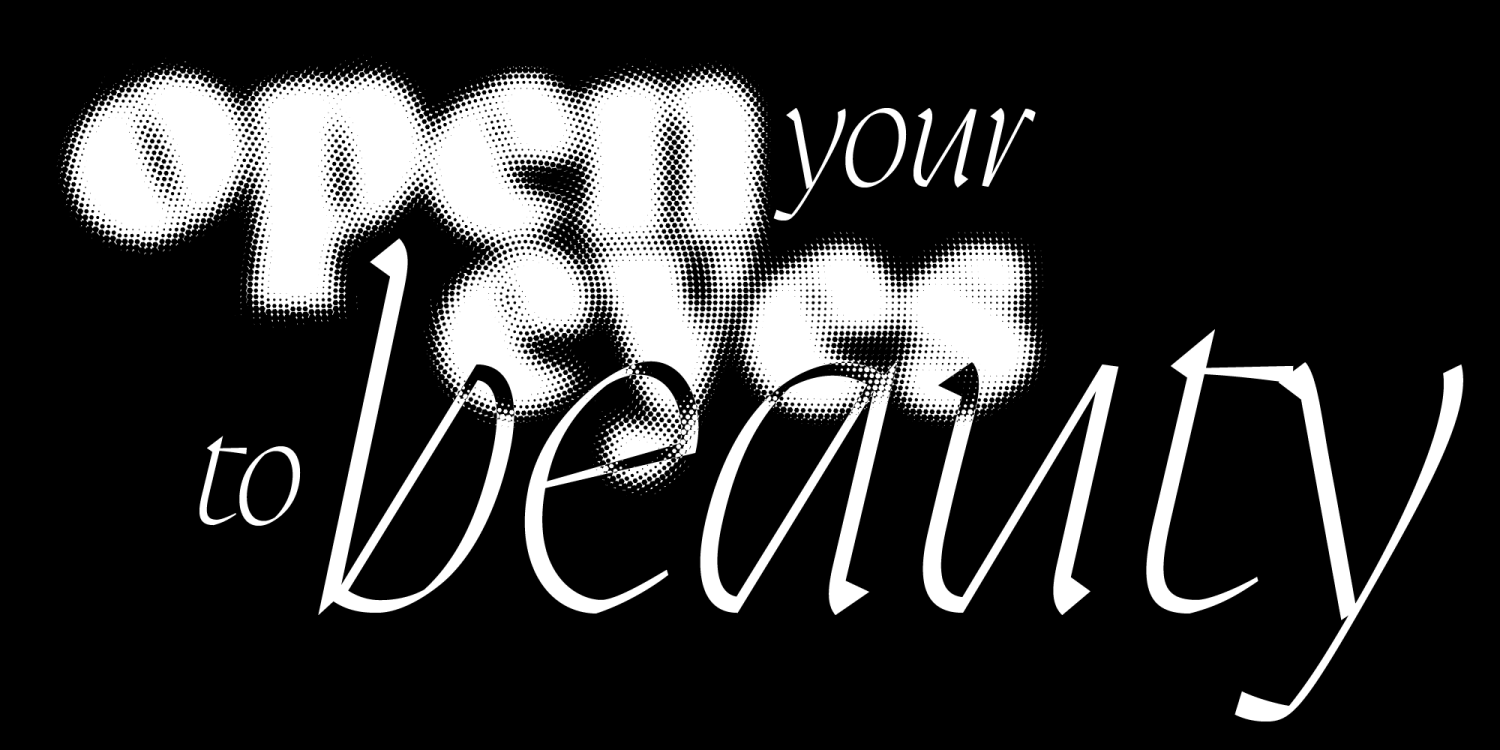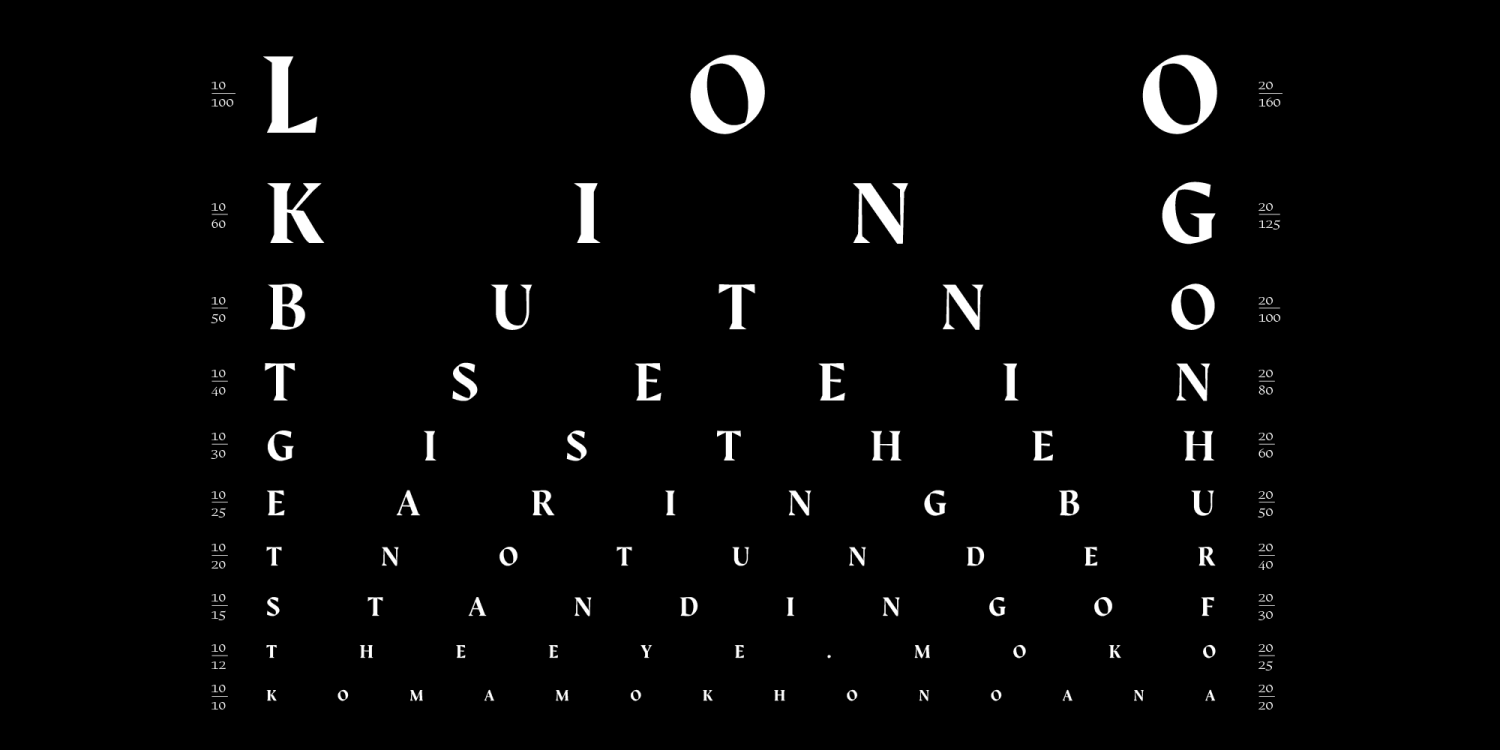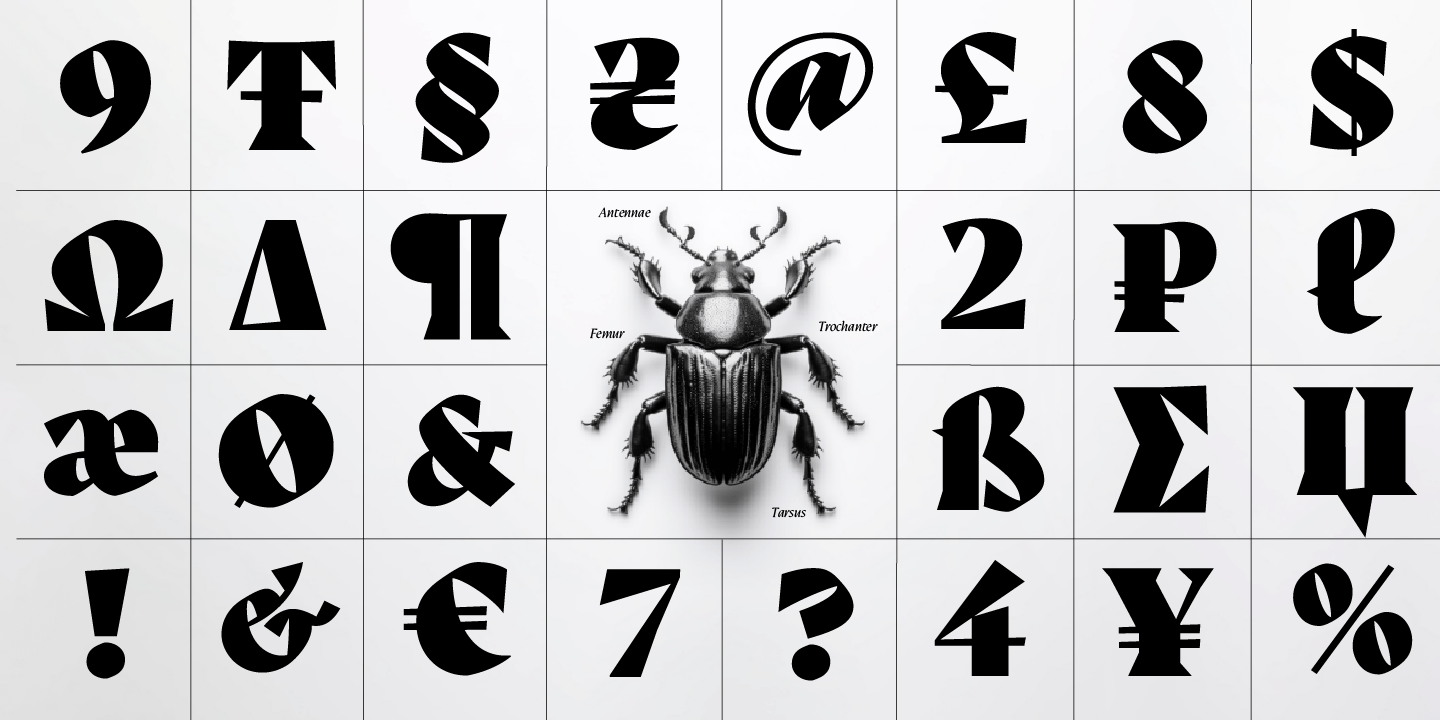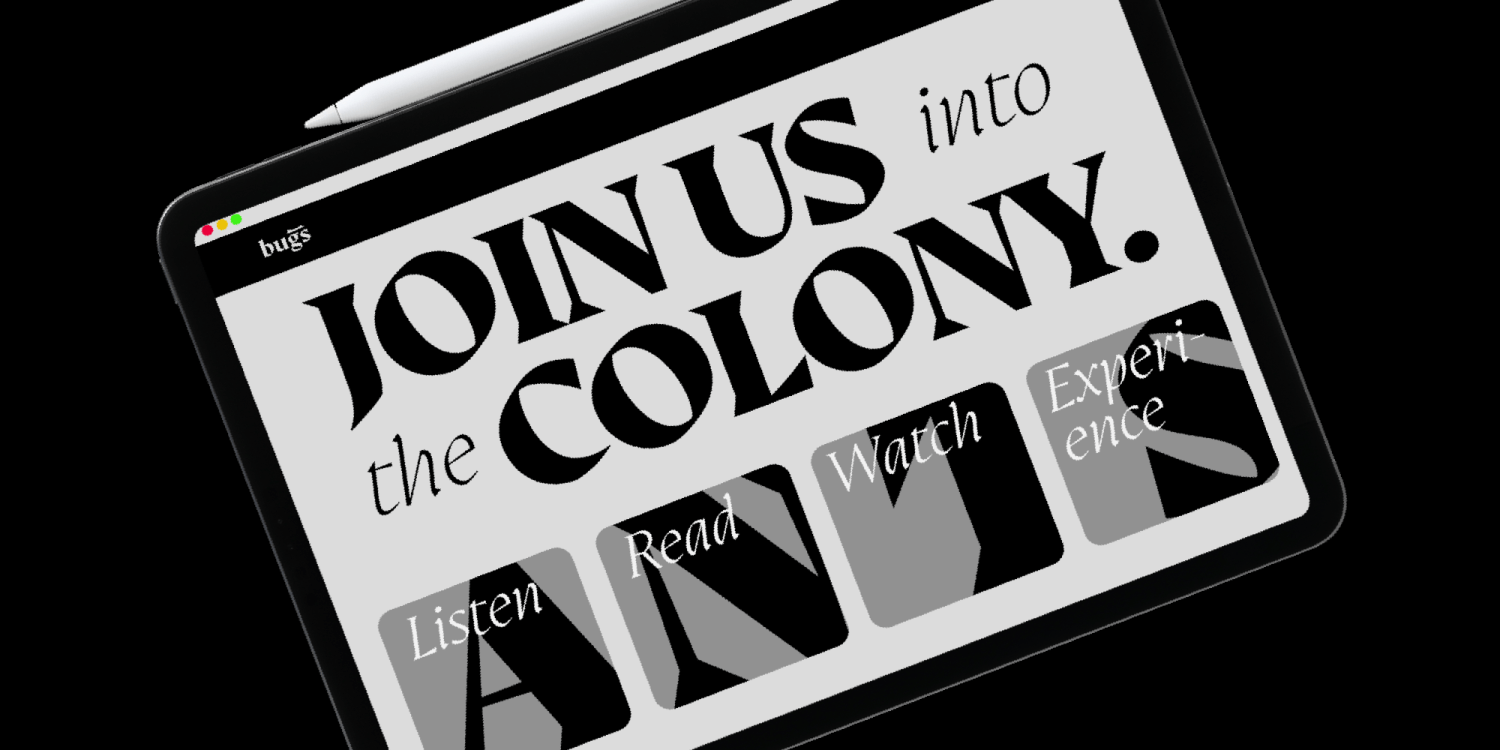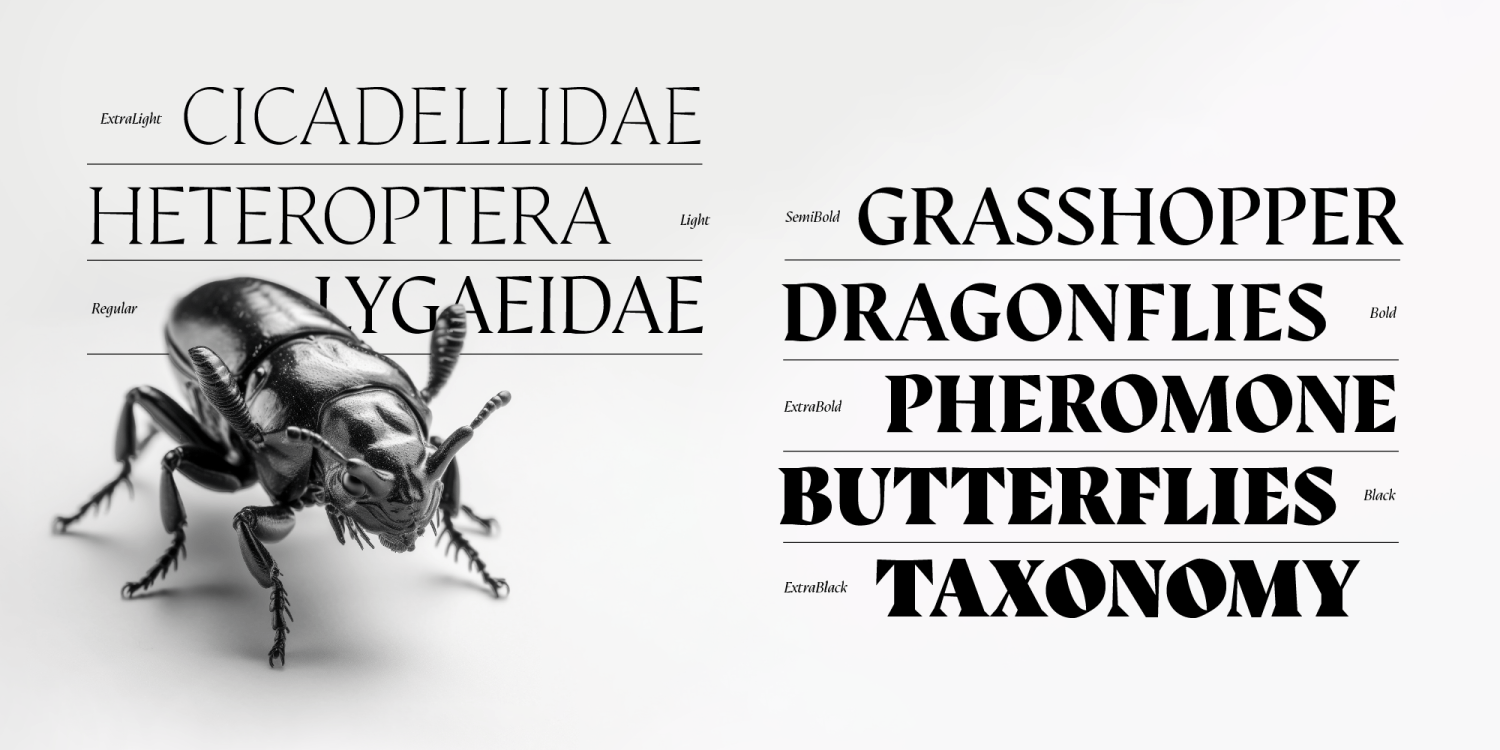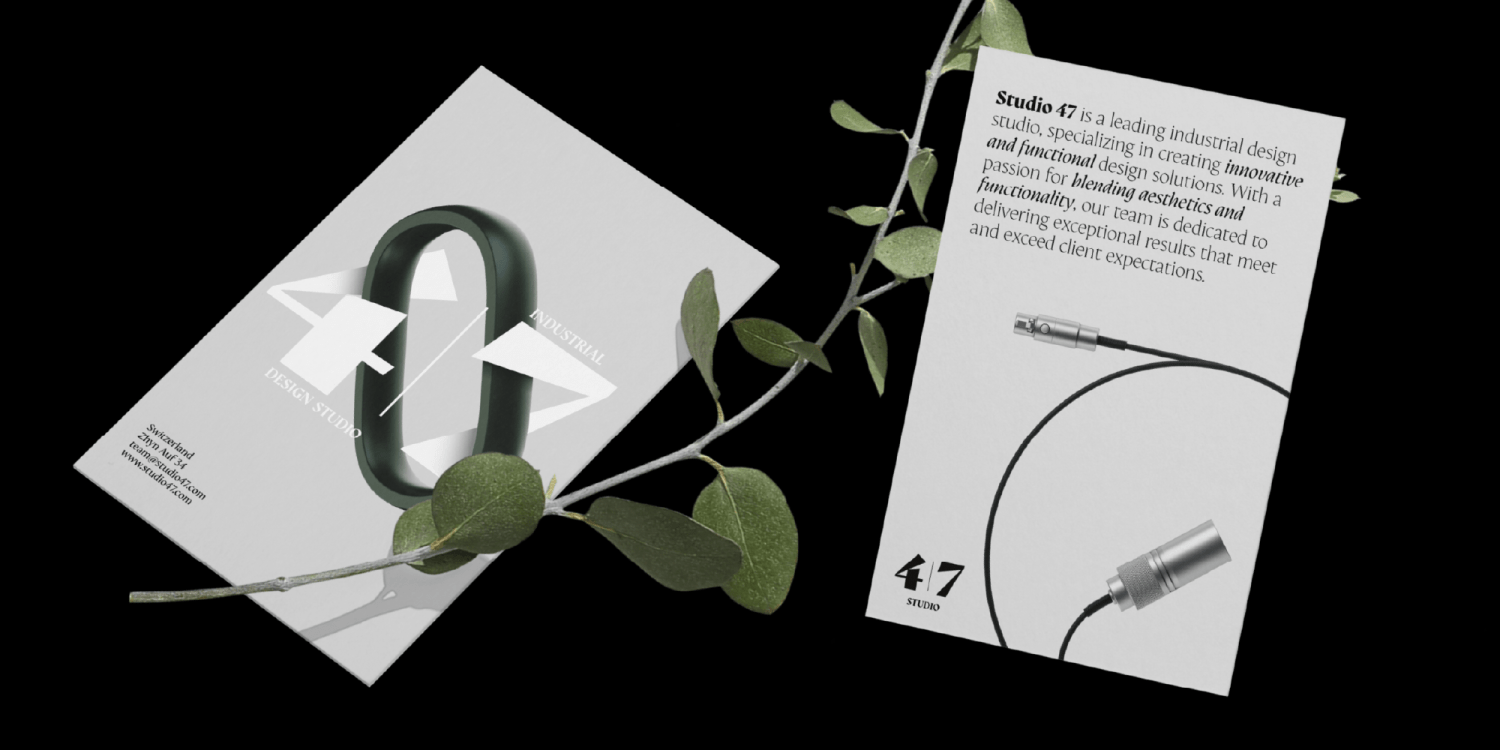
Auge
Auge (German for “eye”) began in 2017 as a graduation project by Nikolay Petroussenko. It was later developed and released by Fontfabric under the direction of Plamen Motev and Viktoria Usmanova. Drawing inspiration from insect anatomy, Auge captures the beauty of the micro-world with sharp details, high contrast, and expressive wedge serifs. The result is a serif type family that fuses scientific precision with poetic design, offering a unique voice for contemporary typography.
Auge is a serif typeface designed for high-impact editorial and branding projects. Its wedge serifs and high contrast inspired by insect structures make it an excellent choice for designers seeking expressive, nature-inspired elegance. Whether you're working on editorial spreads, book covers, brand identity, packaging or web design, this font provides:
- Unique concept-driven aesthetics
- Full set of true italics
- Extensive OpenType support for professional typography
Auge incorporates high contrast and wedge serifs influenced by insect morphology.